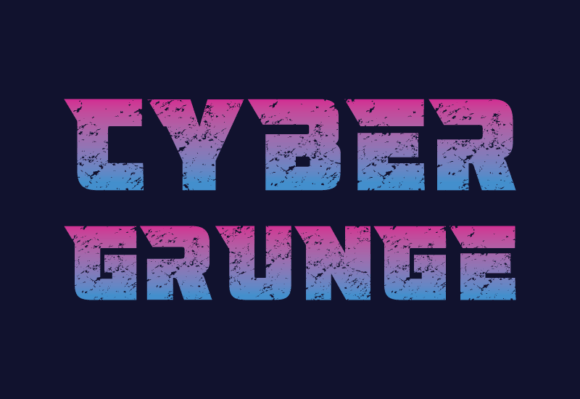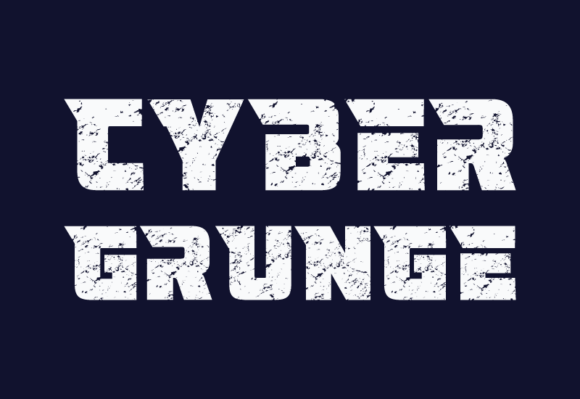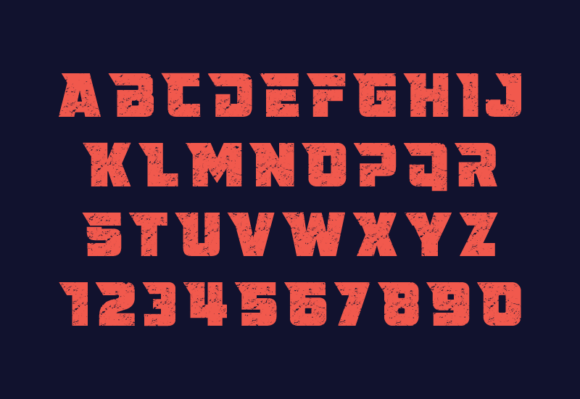
Introduction to Cyber Grunge Font Font
Fonts play a crucial role in design, and the Cyber Grunge Font font is a typeface that brings both character and versatility to any project. Whether you’re working on a branding project, a website, or a print design, the Cyber Grunge Font font offers a unique style that can elevate your work.
Introducing Cyber Grunge, the epitome of contemporary technology in sans-serif font design.
Seamlessly infuse your innovative hi-tech ventures with this striking typeface and watch them shine in their unique distinction Explore the boldness of Cyber Grunge, a font that truly encapsulates the essence of the hi-tech style.
Key Features of Cyber Grunge Font Font
Why Choose Cyber Grunge Font Font?
The Cyber Grunge Font font is more than just a typeface – it’s a design tool that helps you communicate your message with style and clarity. Its unique character set and versatile design make it suitable for a wide range of applications, from elegant invitations to bold headlines.
With its carefully crafted letterforms and balanced proportions, the Cyber Grunge Font font ensures readability and visual appeal across all mediums.
What makes Cyber Grunge Font font special?
The Cyber Grunge Font font stands out with its unique design, exceptional readability, and versatility across various design applications.